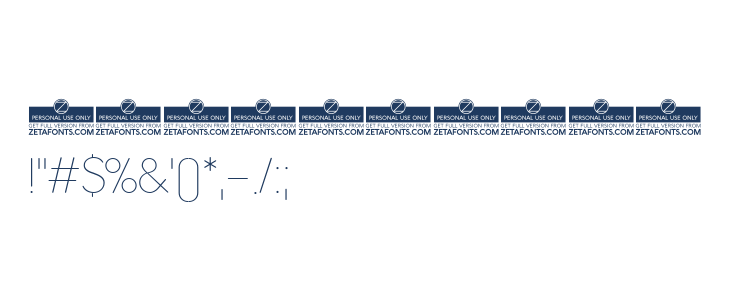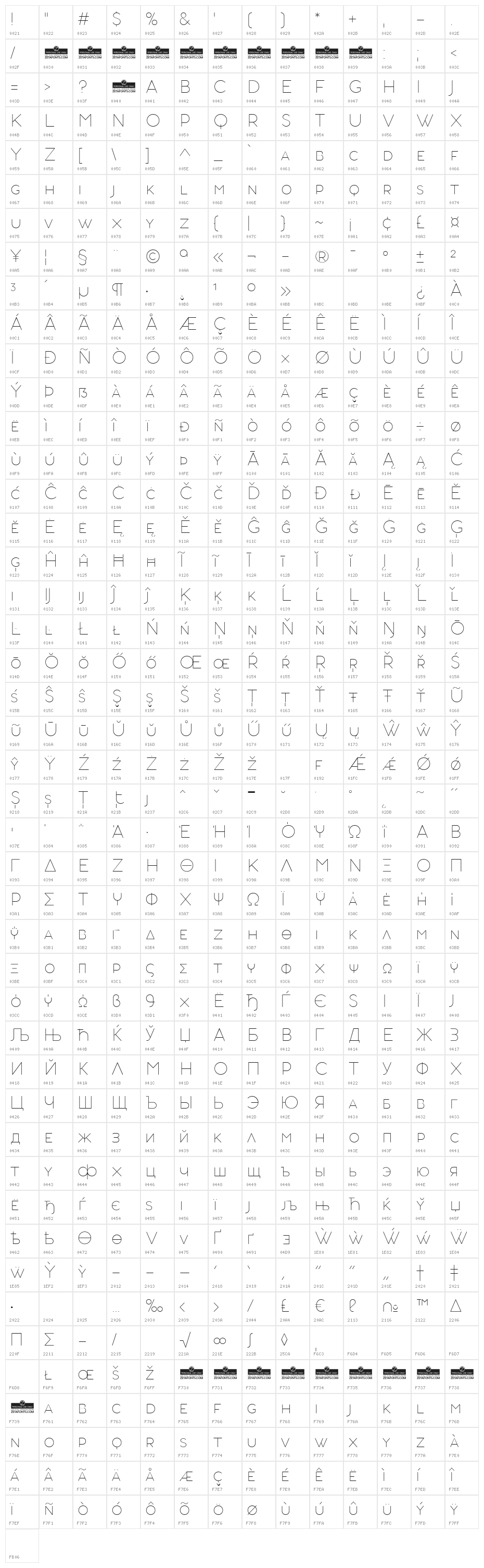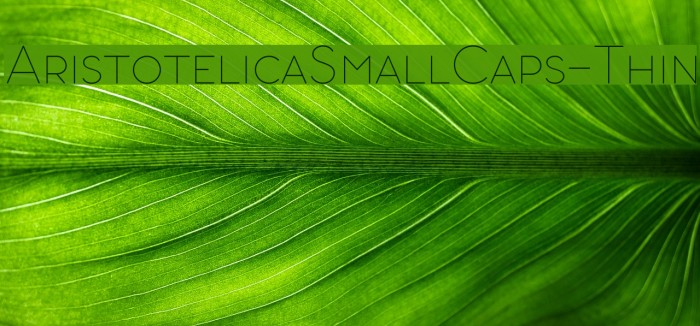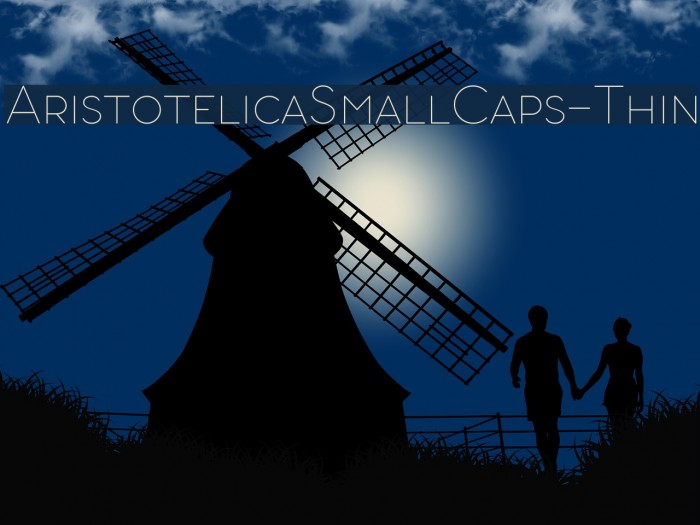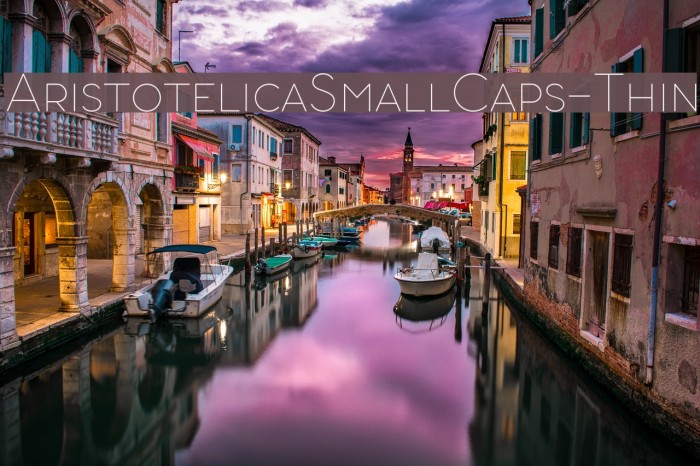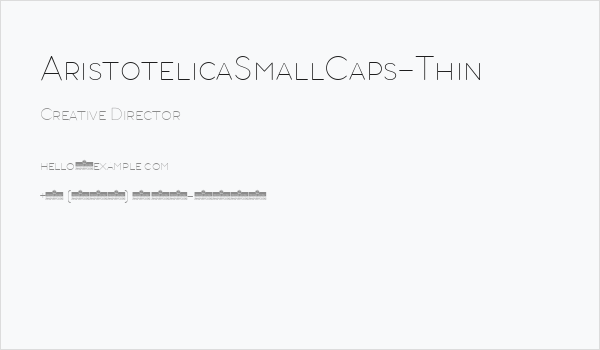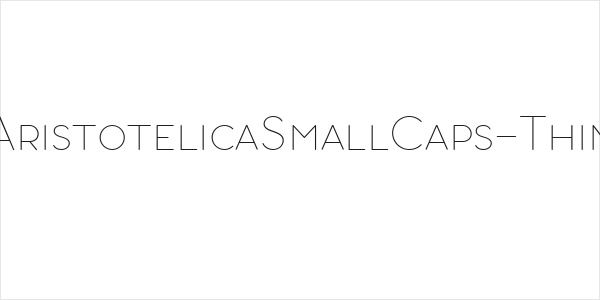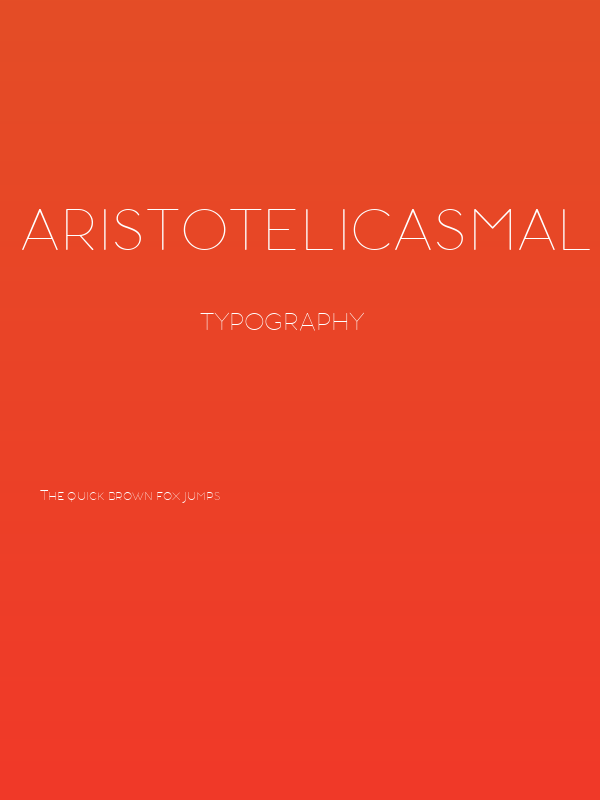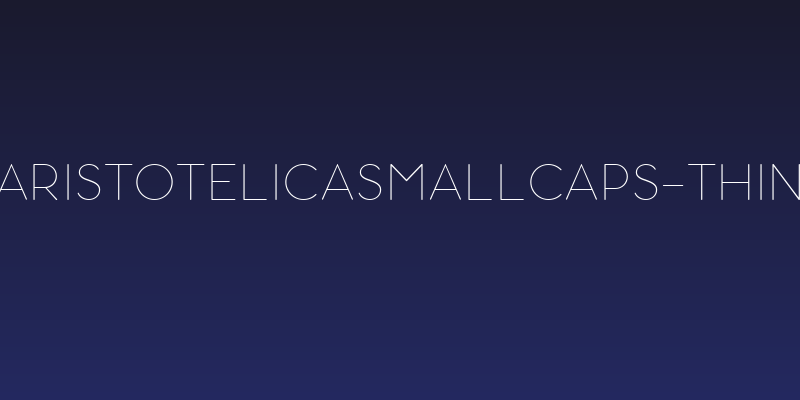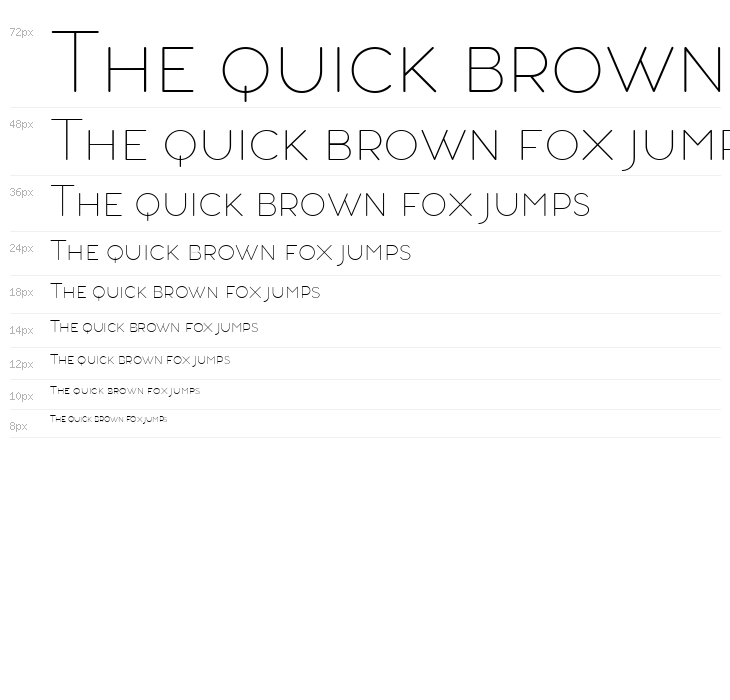
AristotelicaSmallCaps-Thin Font
AristotelicaSmallCaps-Thin Description
This font features a sleek and modern design with thin, clean lines that create an elegant and minimalist appearance. The characters are well-proportioned, offering a sense of balance and harmony. The uppercase letters are uniform in height, while the lowercase letters maintain a consistent style, enhancing readability. The numerals and special characters are designed to complement the overall aesthetic, making this font versatile for various applications. Its simplicity and clarity make it suitable for both digital and print media, ensuring legibility across different sizes and formats.